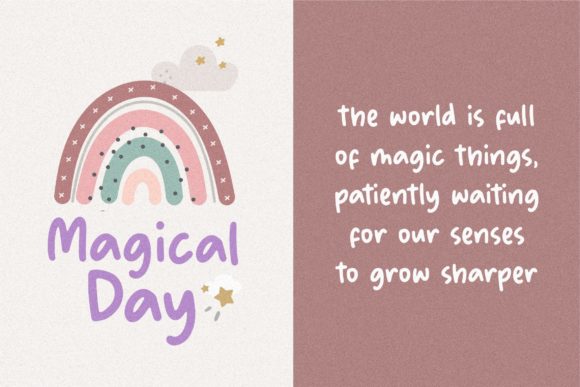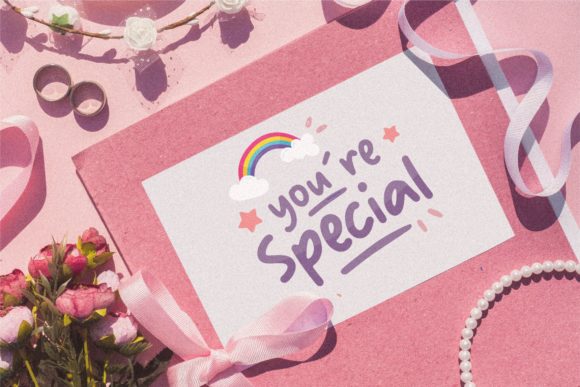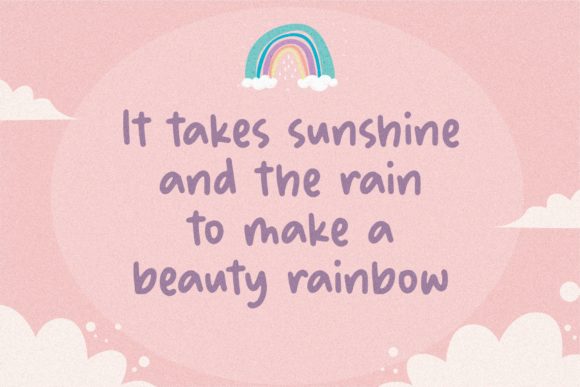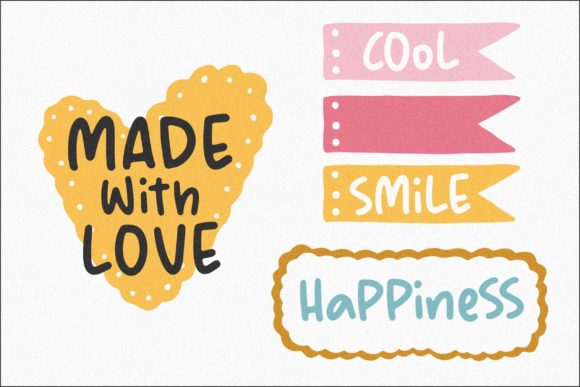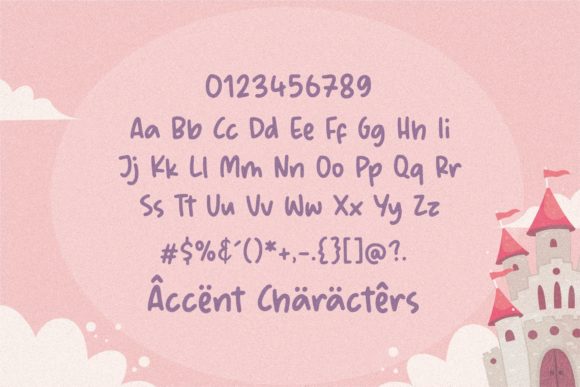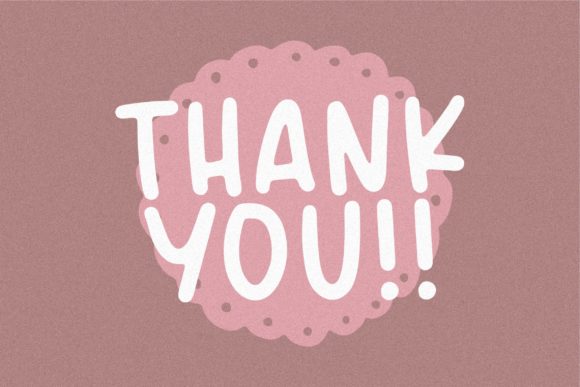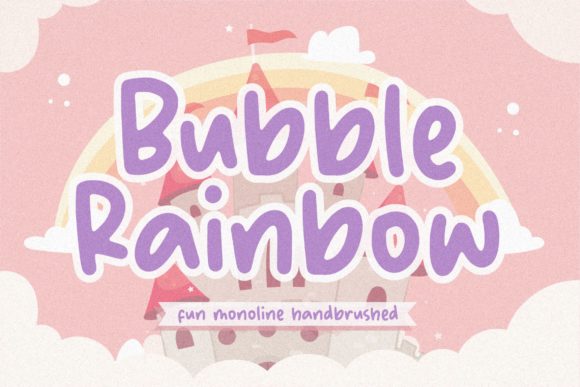
Bubble Rainbow Font: Add a Splash of Fun to Your Designs
Are you looking for a font that can add a touch of whimsy and playfulness to your designs? Look no further than the Bubble Rainbow Font! This fun and vibrant font is perfect for children-themed designs, and its paint-brushed display style gives it a unique and eye-catching look.
What is Bubble Rainbow Font?
Bubble Rainbow Font is a display font that features a playful, paint-brushed style with a bubble-like texture. The font is designed to resemble a child’s drawing, with bold lines and bright colors. It’s the perfect font for designers who want to create fun and engaging designs for kids, or for anyone who wants to add a touch of whimsy to their work.
Characteristics of Bubble Rainbow Font
• Fun and playful style: Bubble Rainbow Font has a unique and playful style that’s perfect for kids’ designs.
• Paint-brushed texture: The font features a paint-brushed texture that gives it a handmade look.
• Bright and bold colors: The font is designed to be used with bright and bold colors, which makes it perfect for eye-catching designs.
• Display font: Bubble Rainbow Font is a display font, which means it’s best used for headlines and titles rather than body text.
Uses for Bubble Rainbow Font
Bubble Rainbow Font is a versatile font that can be used for a variety of design projects, including:
• Kids’ party invitations: The font’s playful style makes it perfect for kids’ party invitations.
• Children’s book titles: Bubble Rainbow Font is a great choice for children’s book titles, as it’s fun and engaging.
• Crafting and DIY projects: The font’s handmade look makes it perfect for crafting and DIY projects, such as signs, banners, and labels.
• Social media graphics: Bubble Rainbow Font can be used to create fun and eye-catching social media graphics, such as Facebook posts and Instagram stories.
Tips for Using Bubble Rainbow Font
Here are a few tips for using Bubble Rainbow Font in your designs:
• Use bright and bold colors: The font is designed to be used with bright and bold colors, so don’t be afraid to get creative with your color palette.
• Experiment with different sizes: Bubble Rainbow Font can be used at a variety of sizes, from large display text to smaller headlines.
• Combine with other fonts: The font can be combined with other fonts to create a unique and interesting look.
• Use for headlines and titles: Bubble Rainbow Font is best used for headlines and titles, rather than body text.
Bubble Rainbow Font is a fun and playful font that’s perfect for kids’ designs, crafting and DIY projects, and social media graphics. Its paint-brushed texture and bright colors make it a unique and eye-catching choice for designers. With its versatility and ease of use, Bubble Rainbow Font is a great addition to any designer’s font collection.